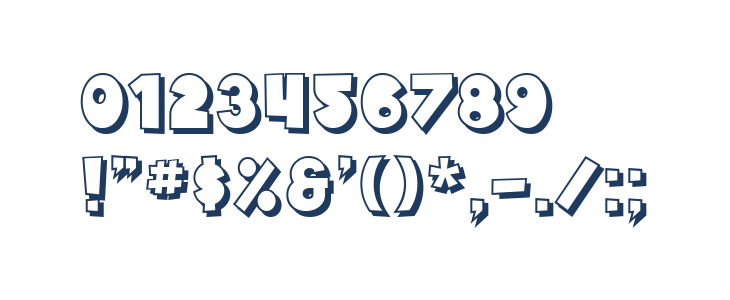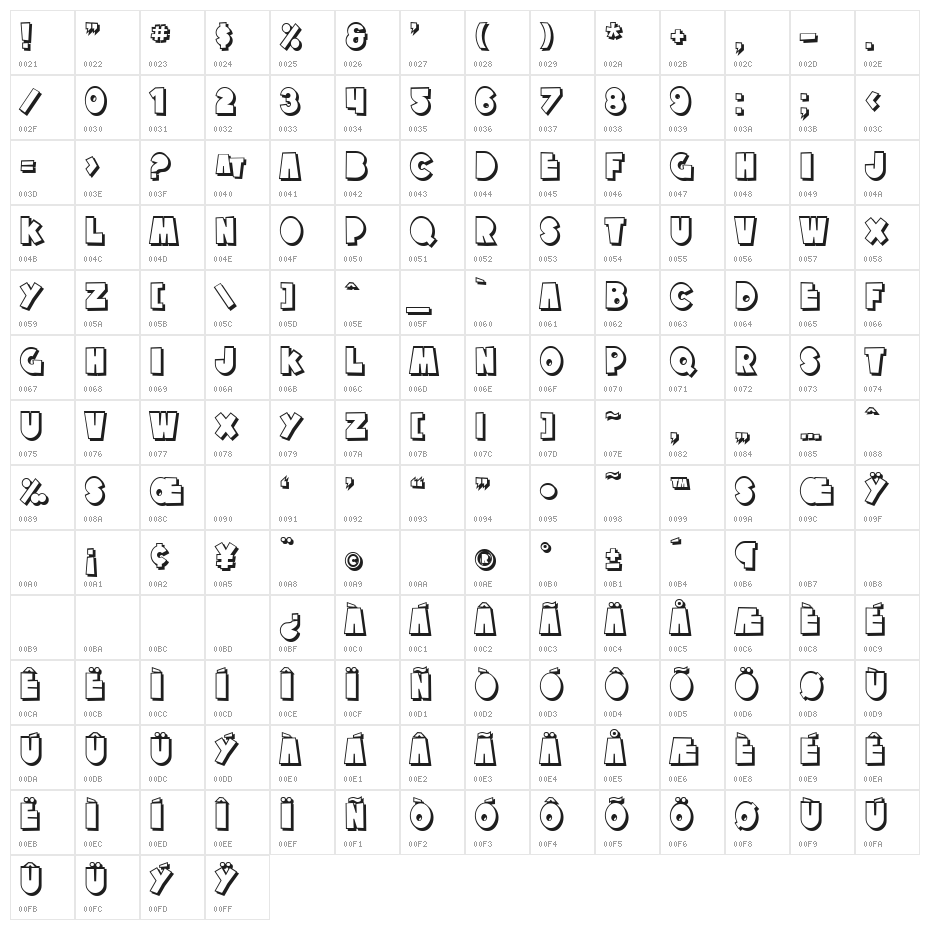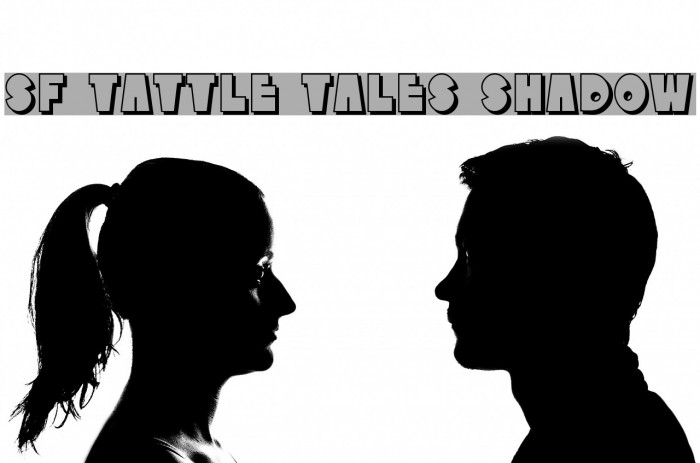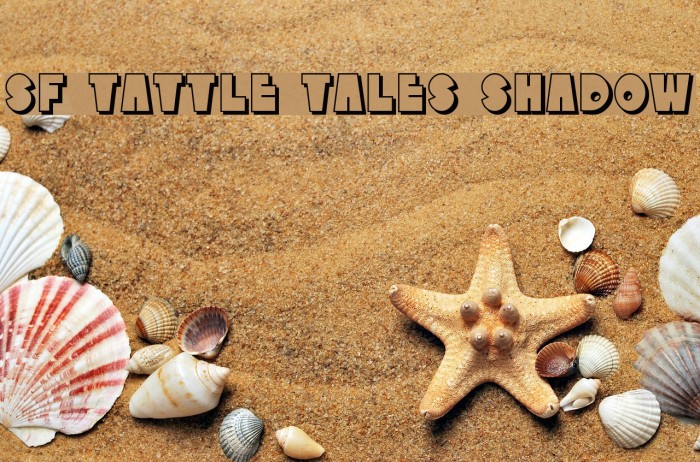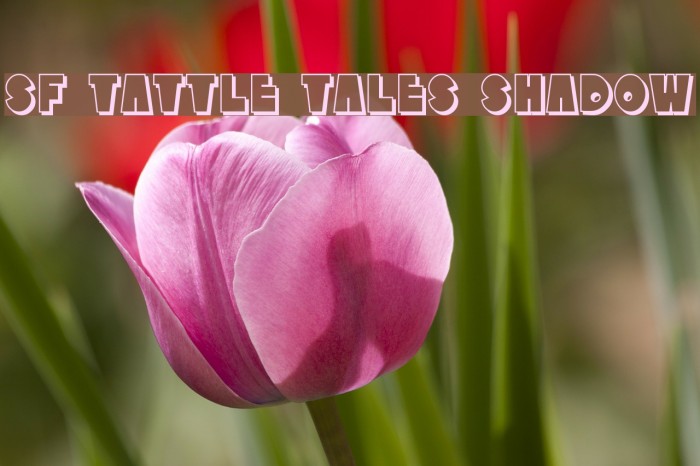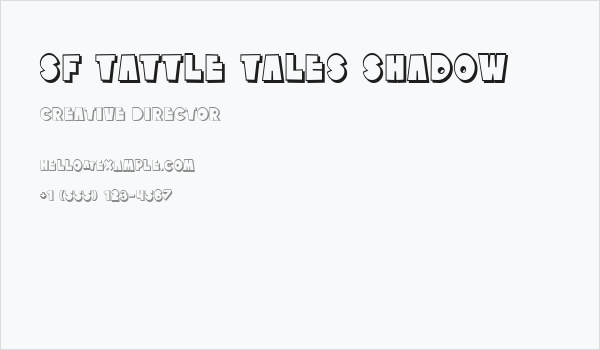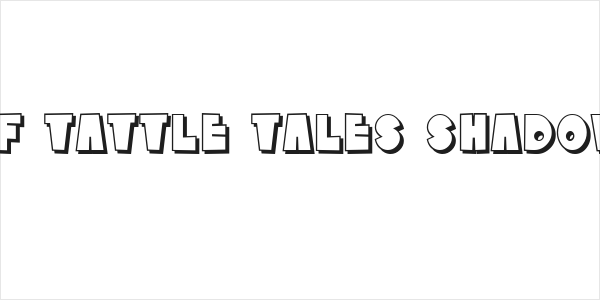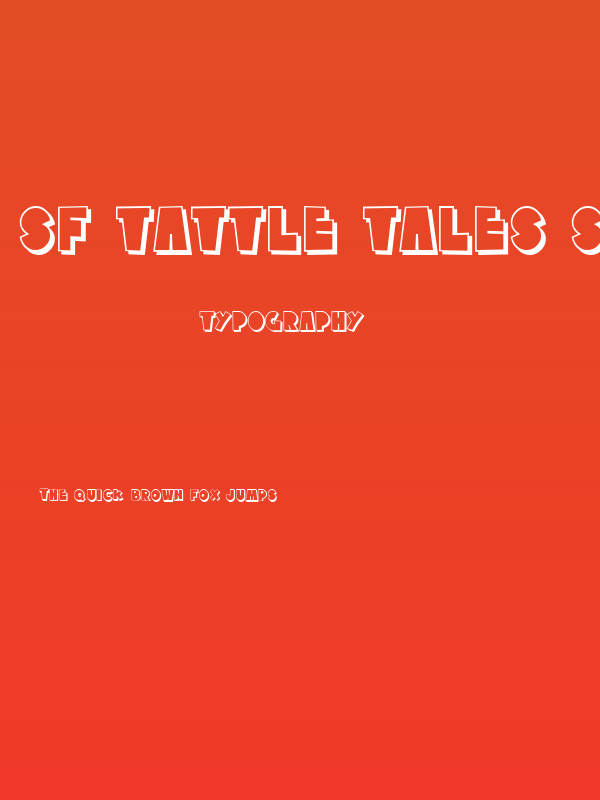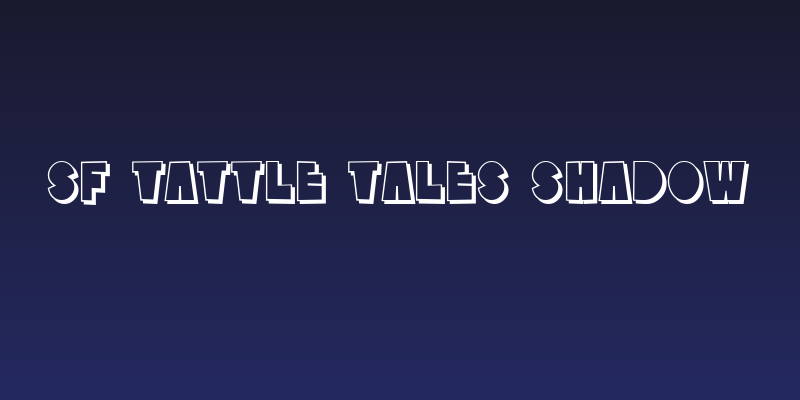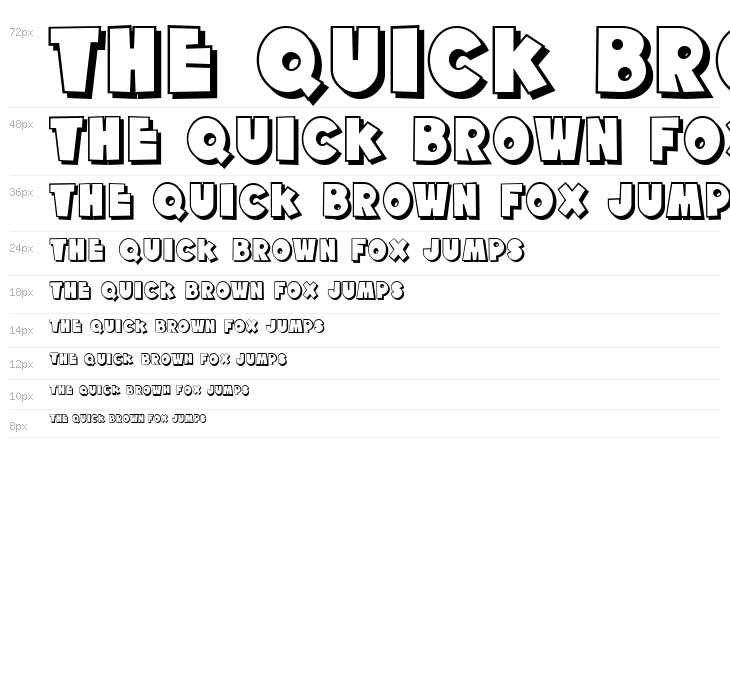
SF Tattle Tales Shadow Font
SF Tattle Tales Shadow Description
This font features a bold, playful style with a distinct shadow effect that gives it a three-dimensional appearance. The characters are blocky and geometric, with clean lines and sharp angles. The shadow adds depth, making it ideal for eye-catching designs. The uppercase and lowercase letters maintain a consistent style, while the numbers and special characters complement the overall look. This font is perfect for projects that require a fun and dynamic visual impact.
| Overall Style | Playful, Modern |
| Use Case | Headlines, Posters, Logos |
| Proposed Projects | Ideal for children's book covers, playful posters, comic-style graphics, and eye-catching headlines. |